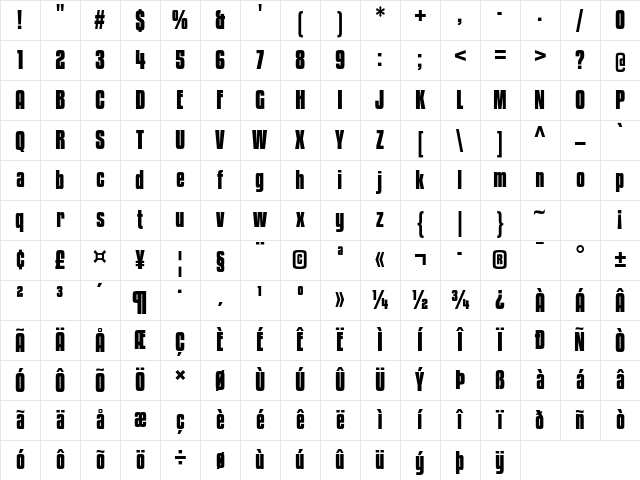
Kenyan Coffee is a composed and adaptable typeface that performs quietly and consistently across a wide range of design contexts. Its bold stroke weight gives it real presence on the page.